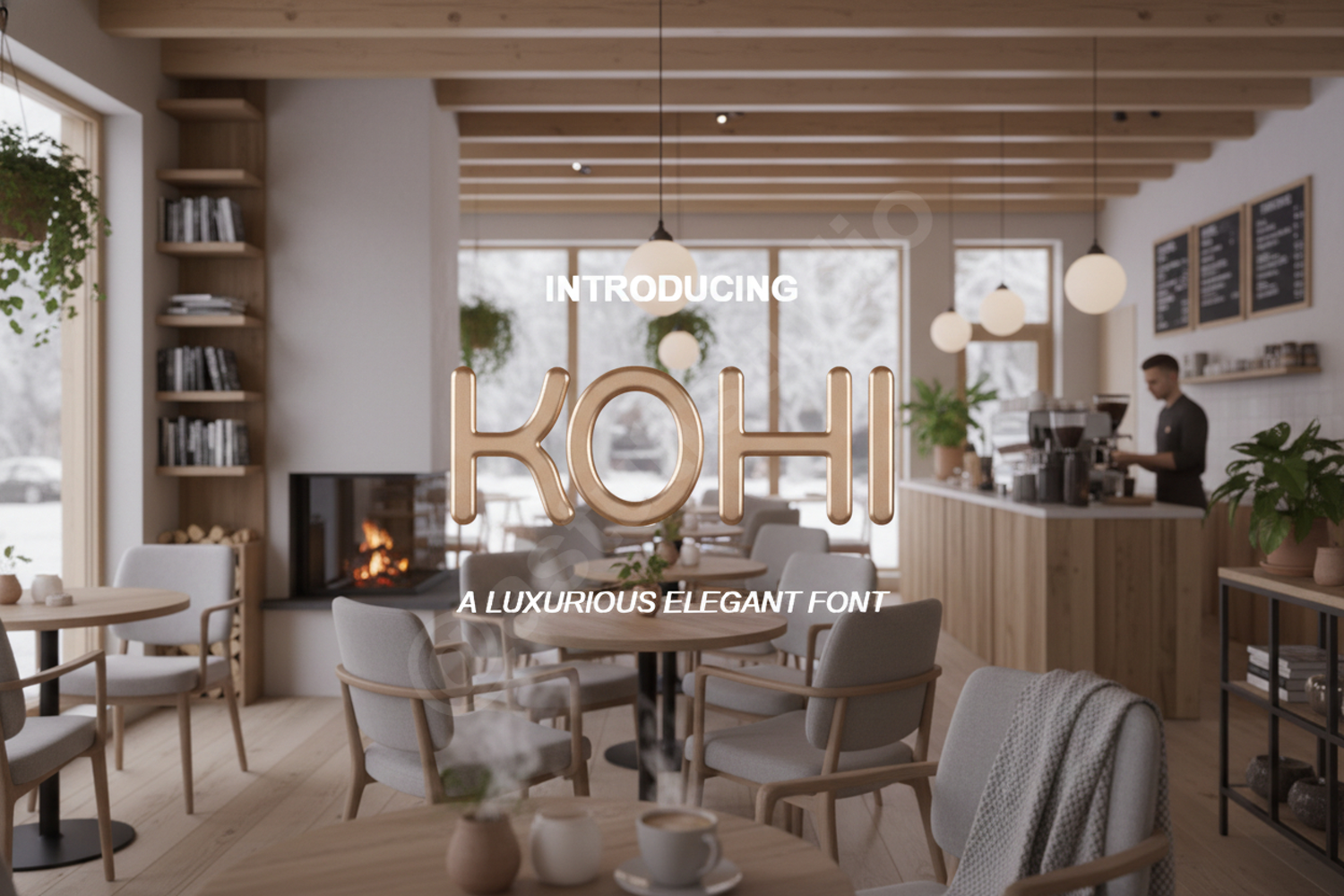
Kohi | Modern Minimalist Sans Serif Display Font
Kohi
Kohi is a premium modern sans serif font designed for those who value clarity and elegance. With its balanced proportions and clean aesthetic, Kohi provides a sophisticated foundation for any design project, from minimalist logos to expansive editorial layouts. Its versatile nature makes it an essential tool for designers looking to achieve a high-end, professional look with ease.